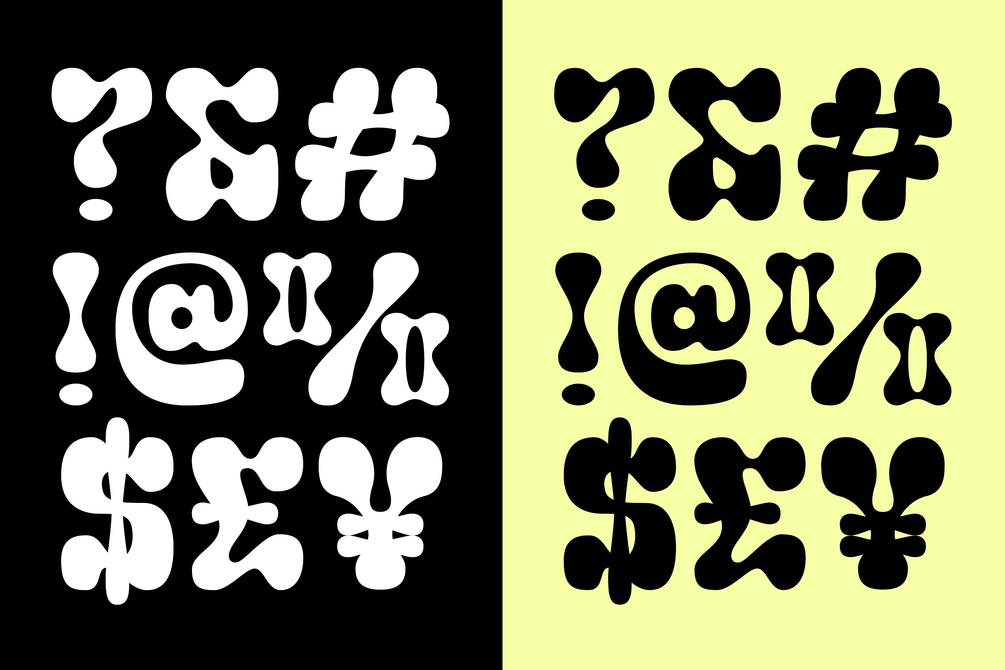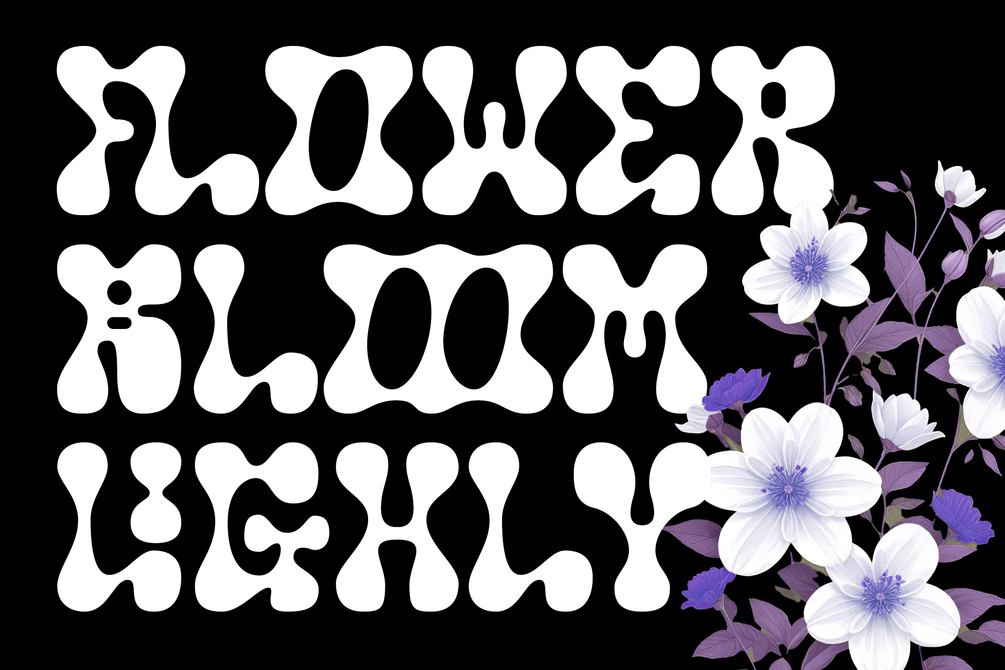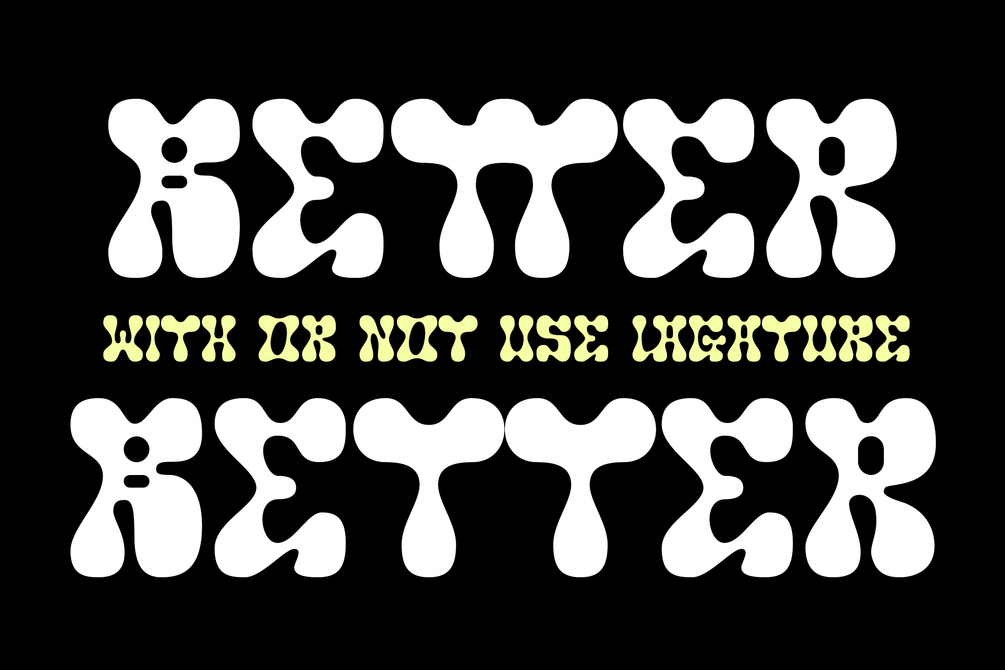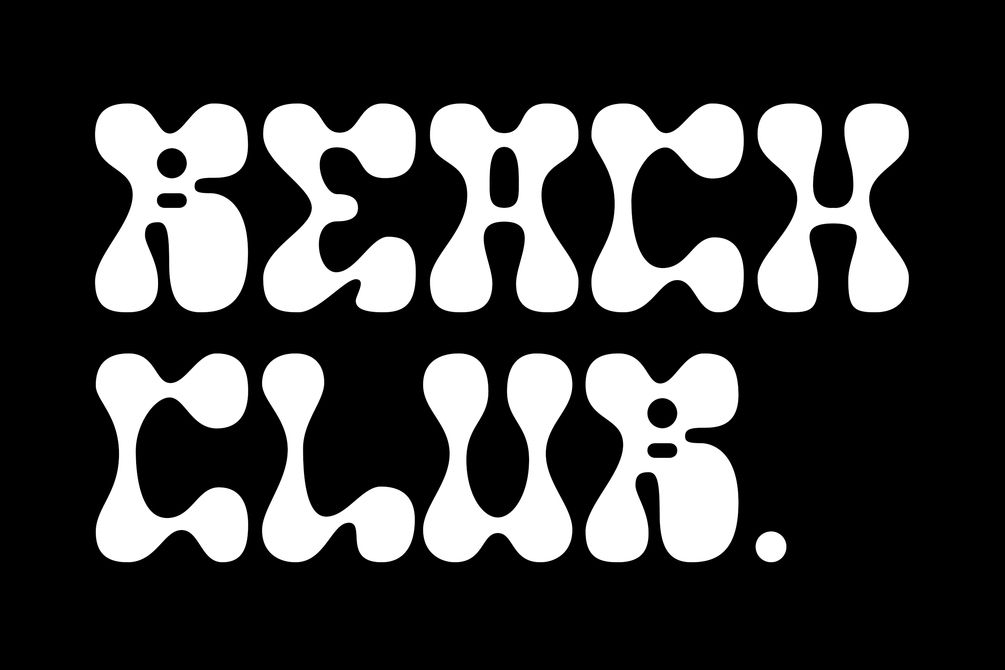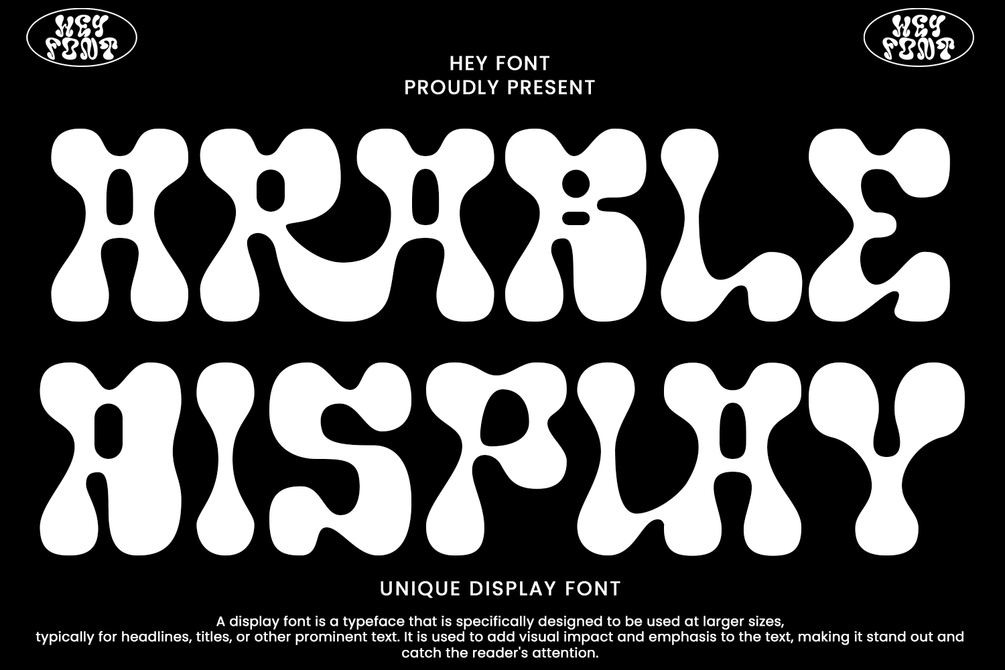
Arable Font
Arable Font Is “Unique Display Font” refers to a specific type of typography that is characterized by its distinctive, one-of-a-kind design, and it is typically used for eye-catching and decorative purposes. Here’s a detailed explanation of what a unique display font is:
1. Distinctive Design: Unique display fonts stand out because of their distinct and unconventional design. They often deviate from traditional letterforms and can take on a wide range of creative and artistic shapes. Unlike standard, legible fonts used for body text, display fonts prioritize aesthetics over readability.
2. Specialized Use: Display fonts are not intended for extended reading. Instead, they are used in small quantities for headlines, titles, logos, posters, banners, invitations, and other design elements where visual impact is essential. Their unique and attention-grabbing design makes them ideal for drawing attention to specific text.
3. Creative Freedom: Designers have creative freedom when creating unique display fonts. This allows for a wide array of styles, from whimsical and ornate to futuristic and abstract. Some display fonts may be inspired by art movements, cultures, historical periods, or nature, leading to highly original and thematic designs.
4. Limited Character Set: Display fonts often have a limited character set compared to standard fonts. They typically include uppercase letters, numbers, and basic punctuation marks, but may lack lowercase letters or extended characters. This limitation is due to their specialized use and focus on visual impact.
5. Customization: Some unique display fonts are custom-designed for specific projects or brands. Designers work closely with clients to create a font that aligns with the brand’s identity or the project’s theme, ensuring a truly unique and tailored result.
6. Combination with Other Fonts: In many design projects, unique display fonts are paired with more standard, legible fonts to achieve a balance between visual impact and readability. This combination allows for a harmonious and effective overall design.